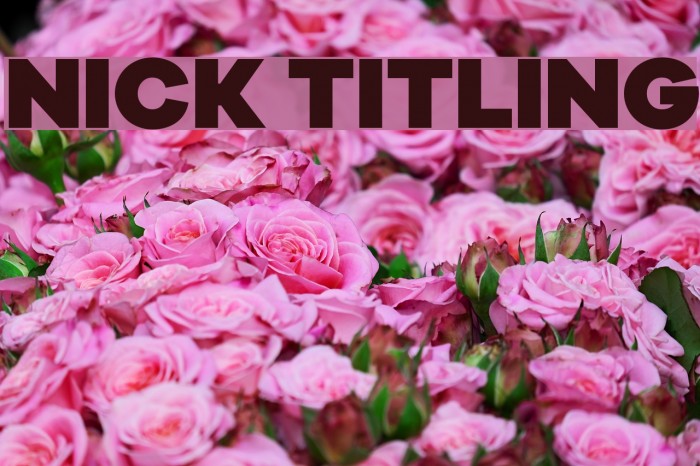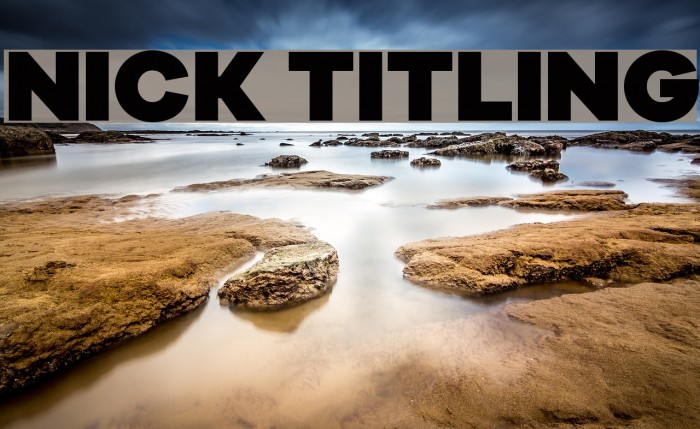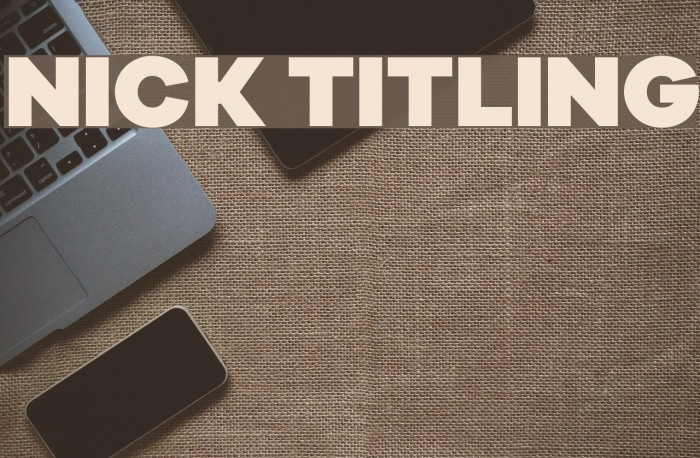
Nick Titling Font
This font features a bold and impactful design, characterized by thick, uniform strokes and a strong presence. The uppercase letters are robust and commanding, making them ideal for attention-grabbing headlines and titles. The numbers and special characters maintain the same boldness, ensuring consistency across all uses. The font's geometric shapes and clean lines give it a modern and professional appearance, suitable for a variety of design projects that require a strong visual impact.
A bold, modern font with thick, uniform strokes and a strong presence.
- Proposed Projects: Ideal for headlines, posters, branding, and advertising where a strong visual impact is needed.